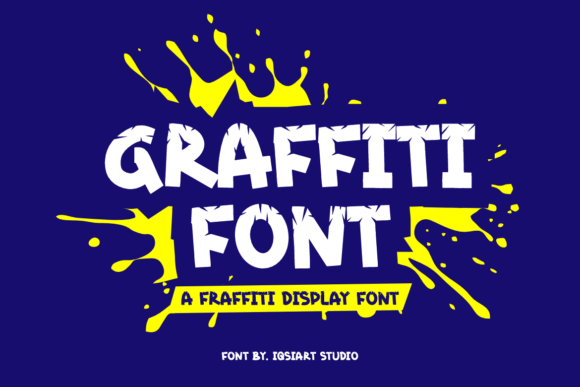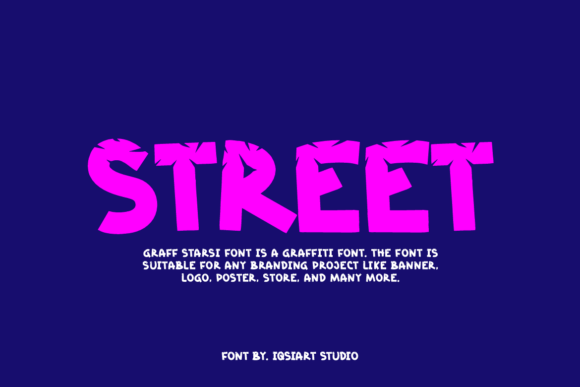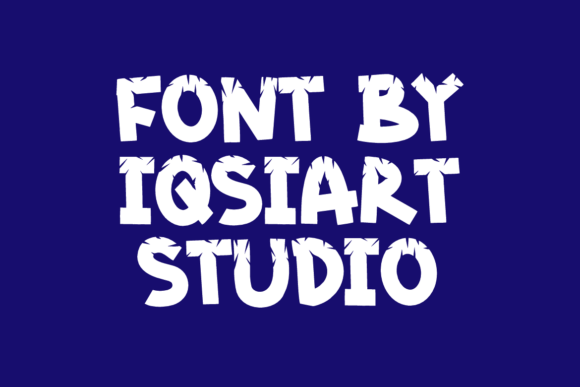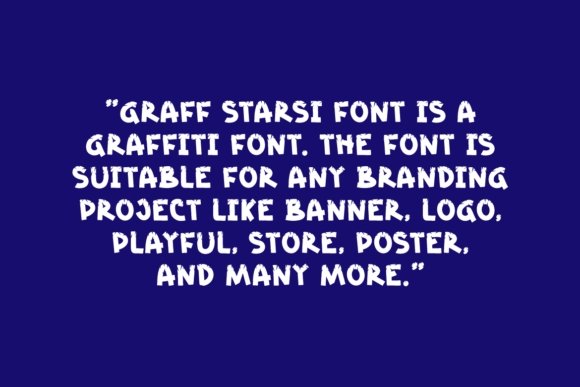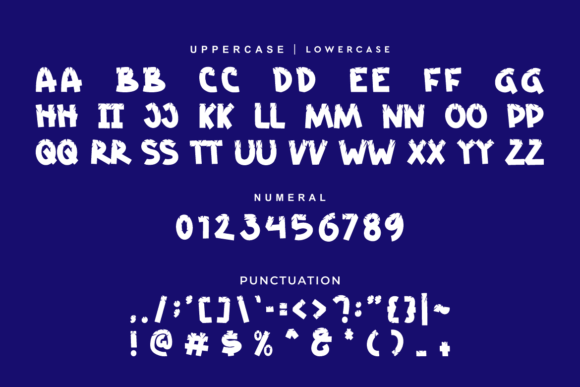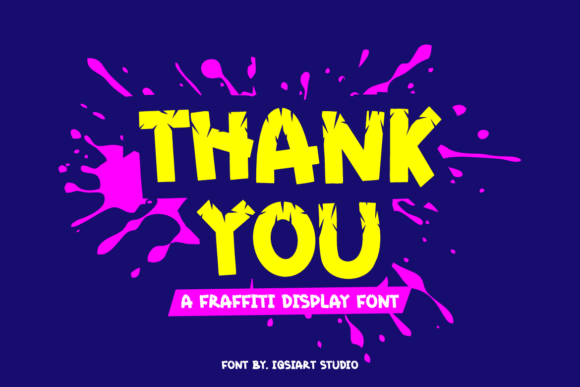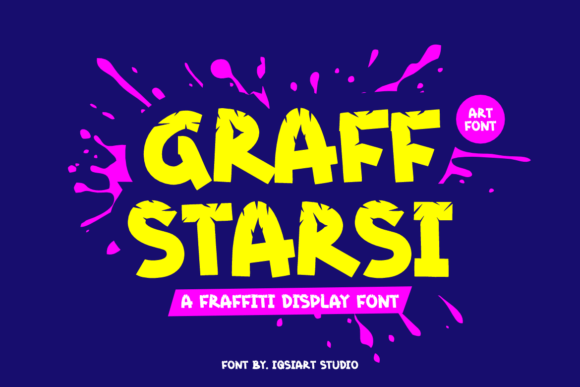
Unleash Your Creativity with Graff Starsi Font: A Decorative Masterpiece
Graff Starsi is an incredibly unique decorative font that has been masterfully designed to become a true favorite among designers and crafters. With its exceptional style and versatility, this font has the potential to bring each of your creative ideas to the highest level. Whether you’re working on a graphic design project, crafting a handmade card, or creating digital content, Graff Starsi is the perfect choice to add a touch of elegance and sophistication.
What Makes Graff Starsi Font So Special?
Graff Starsi font stands out from the rest due to its distinctive and intricate design. The font features a beautiful blend of classic and modern elements, making it perfect for a wide range of creative projects. Its unique style is characterized by:
- Intricate lettering: Each letter is carefully crafted with attention to detail, resulting in a beautiful and elegant appearance.
- Unique ornamentation: The font features decorative elements that add an extra touch of sophistication to your designs.
- Versatile style: Graff Starsi can be used for both formal and informal projects, making it a great addition to your font collection.
How to Use Graff Starsi Font in Your Designs
Graff Starsi font can be used in a variety of creative projects, including:
- Graphic design: Use Graff Starsi to create stunning posters, flyers, brochures, and other marketing materials.
- Handmade crafts: Add a personal touch to your handmade cards, scrapbook pages, and other paper crafts.
- Digital content: Use Graff Starsi to create engaging social media graphics, blog posts, and website headers.
Tips and Tricks for Getting the Most Out of Graff Starsi Font
To get the most out of Graff Starsi font, here are some tips and tricks to keep in mind:
- Experiment with different sizes: Graff Starsi looks great in large and small sizes, so don’t be afraid to experiment with different font sizes.
- Pair with complementary fonts: Pair Graff Starsi with simpler fonts to create a beautiful contrast and add visual interest to your designs.
- Use in combination with graphics: Graff Starsi looks great when paired with illustrations, graphics, and other visual elements.
Key Features of Graff Starsi Font
- Unique and intricate design
- Decorative ornamentation
- Versatile style suitable for formal and informal projects
- Perfect for graphic design, handmade crafts, and digital content
By incorporating Graff Starsi font into your creative projects, you’ll be able to:
- Add a touch of elegance and sophistication
- Stand out from the crowd with a unique and eye-catching design